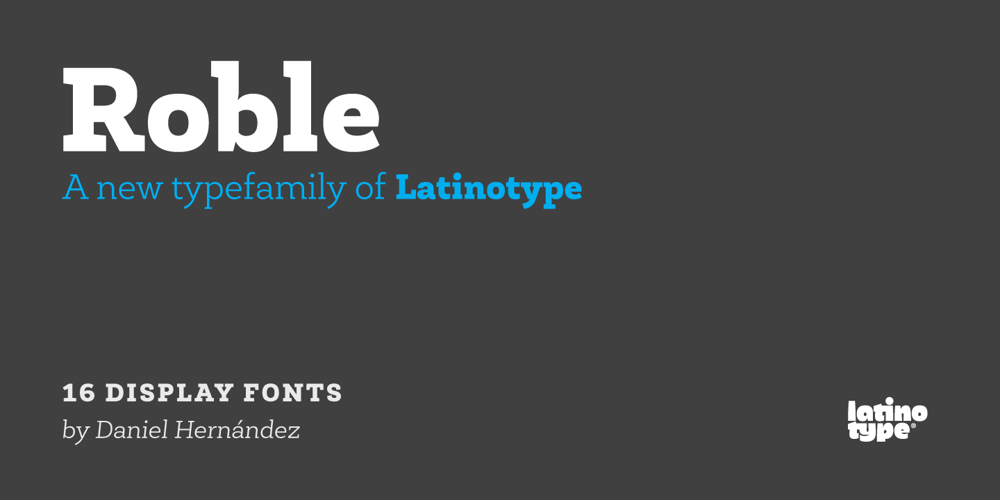
Roble Font Family was designed by Daniel Hernández and published by Latinotype. Roble contains 16 styles and family package options. Roble is a Slab Serif Font, from a mix between Andes and Sanchez, following a harmony with both fonts one sans and one serif with a fresh and dynamic result. Roble is a family of 16 display fonts 8 weights plus italics.